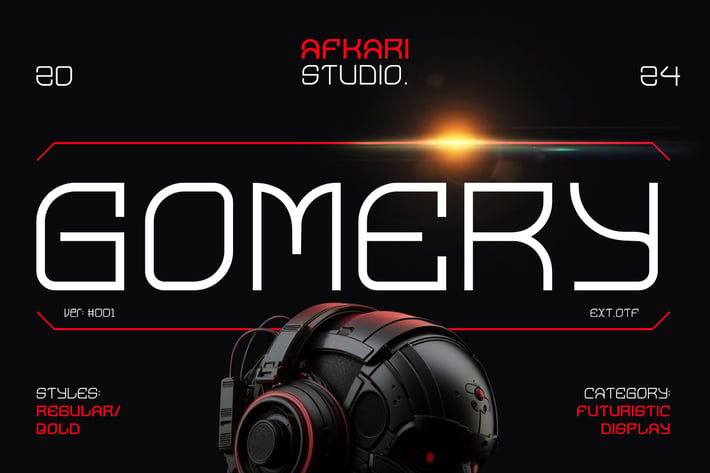
Gomery - Modern Futuristic Display Font
Introducing Gomery, a cutting-edge display font designed to bring a sleek, modern, and futuristic edge to your projects. Perfect for tech-oriented branding, digital interfaces, and forward-thinking design, Gomery combines clean, geometric lines with striking curves, creating a bold presence that stands out in any layout.
Each character is meticulously crafted to balance readability with a stylish, sci-fi appeal, making it ideal for logos, posters, headlines, and digital content. Elevate your designs into the future with Gomery, where minimalism meets innovation.
Highlighted Features:
- Complete set of uppercase and lowercase letters, numerals, and punctuation marks
- Unique alternates and ligatures for enhanced character variation
- Multilingual support including characters such as ä, ö, ü, Ä, Ö, Ü, ß, ¿, and ¡
Gomery transcends mere functionality; it becomes a beacon of creativity and innovation. Its adaptability allows it to seamlessly integrate into tech-driven projects, futuristic branding, sci-fi book covers, modern logos, sleek posters, high-tech interface designs, contemporary apparel, and more.
The font’s versatility is matched only by its ability to inject a sense of dynamism and energy into every project it graces. Whether it’s amplifying a tech-savvy advertisement or adding a touch of modernity to a digital platform, Gomery lends a futuristic charm that captivates audiences.
Each character is meticulously crafted to balance readability with a stylish, sci-fi appeal, making it ideal for logos, posters, headlines, and digital content. Elevate your designs into the future with Gomery, where minimalism meets innovation.
- Complete set of uppercase and lowercase letters, numerals, and punctuation marks
- Unique alternates and ligatures for enhanced character variation
- Multilingual support including characters such as ä, ö, ü, Ä, Ö, Ü, ß, ¿, and ¡
Gomery transcends mere functionality; it becomes a beacon of creativity and innovation. Its adaptability allows it to seamlessly integrate into tech-driven projects, futuristic branding, sci-fi book covers, modern logos, sleek posters, high-tech interface designs, contemporary apparel, and more.
The font’s versatility is matched only by its ability to inject a sense of dynamism and energy into every project it graces. Whether it’s amplifying a tech-savvy advertisement or adding a touch of modernity to a digital platform, Gomery lends a futuristic charm that captivates audiences.